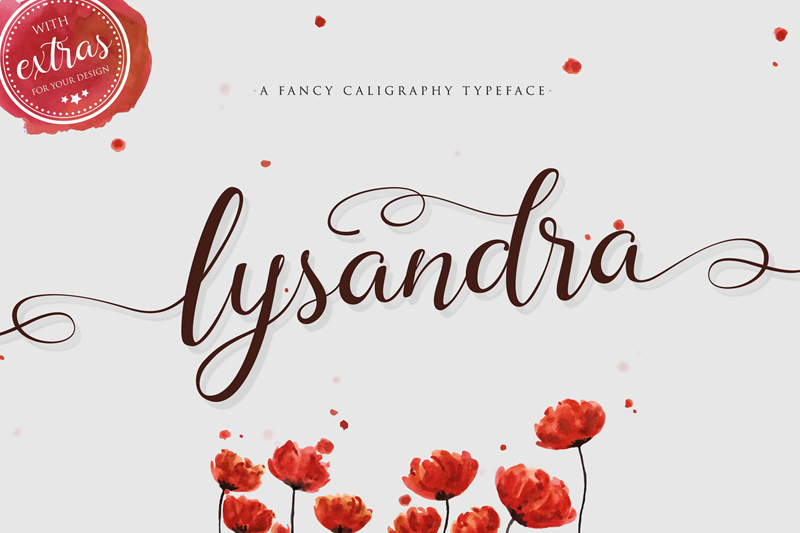
Font name: | Lysandra |
Author: | Aktab Studio |
Lysandra Typeface is a modern font with more featured and made with love :). Lysandra Typeface have a complete glyphs, this font suitable for wedding invitation, greeting cards, T-Shirt, Logo or any design that you create. comes with a complete set of standard characters, Alternates, Ligature Variation, Punctuation & have extra textured version for your design and many more. This Fonts Only for Personal Use. For commercial rights please contact us : aktab.studio@gmail.com or you can send donation via paypal to : pp.aktab.alt@gmail.com FOR FULL VERSION: https://crmrkt.com/qza1gg Regards, Aktab Studio |